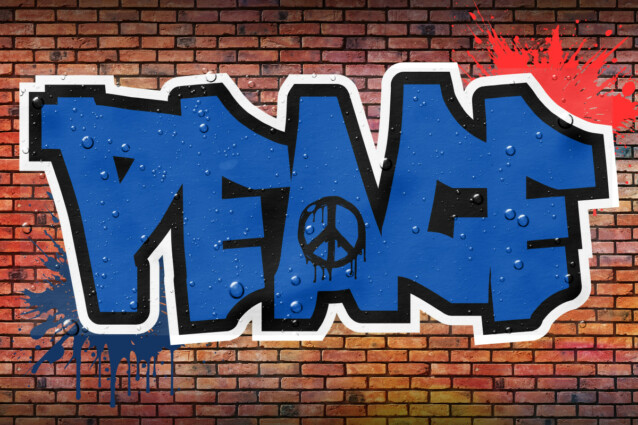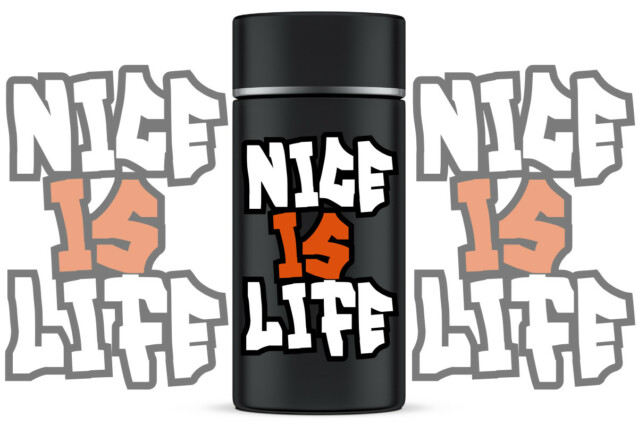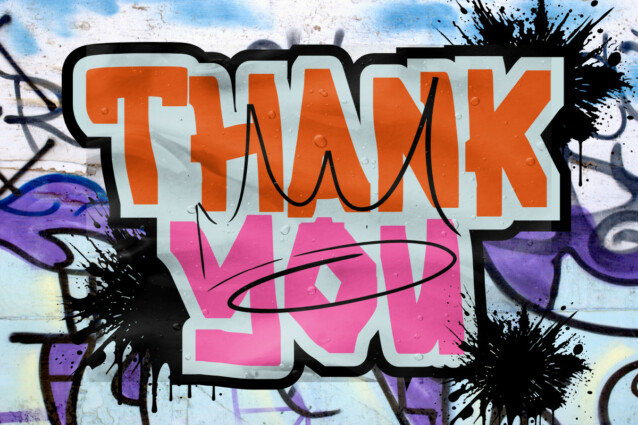
Urban Skate Font is a font with a cool and bold urban style striped look. Add this font to your urban and casual creations and you will love the results.